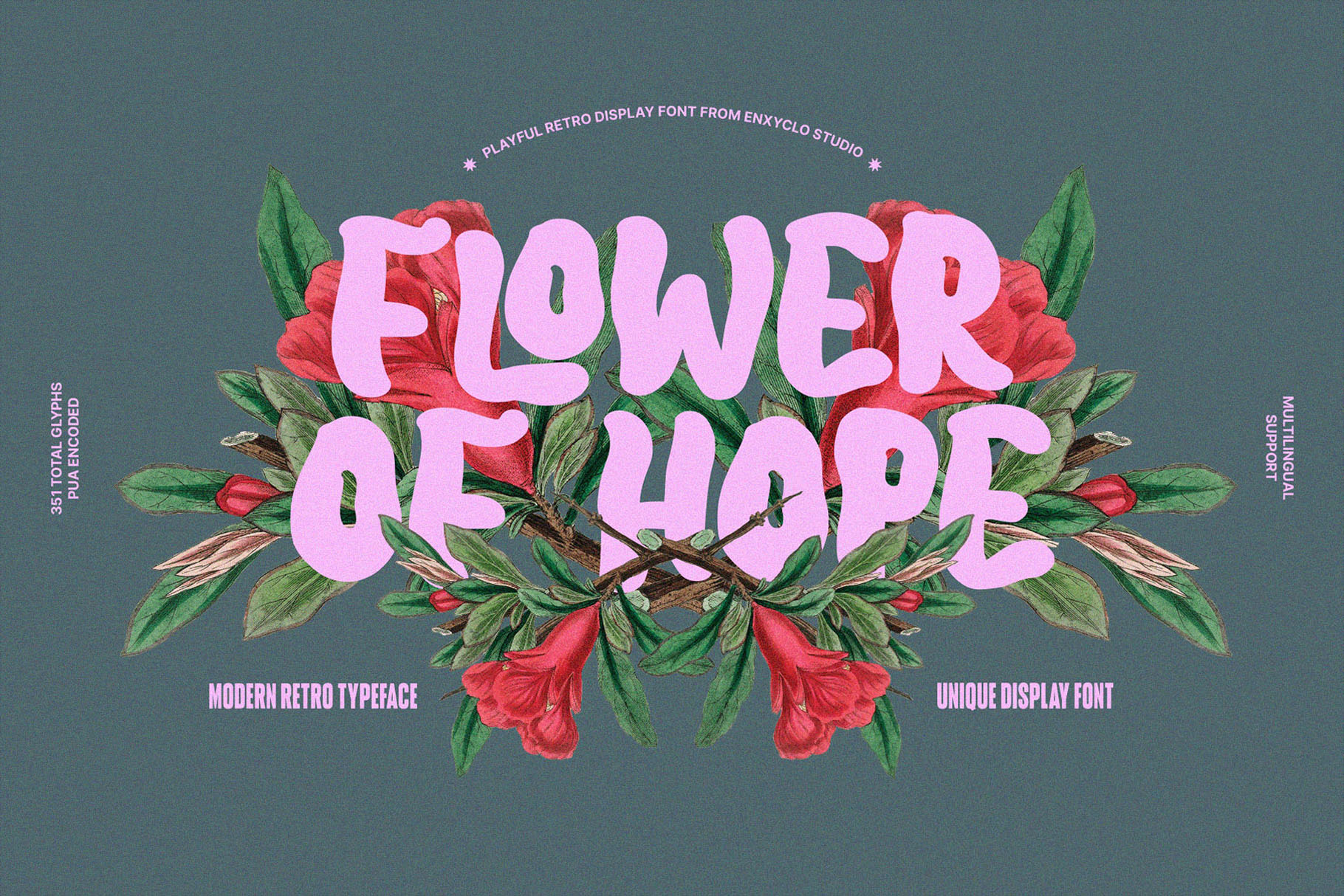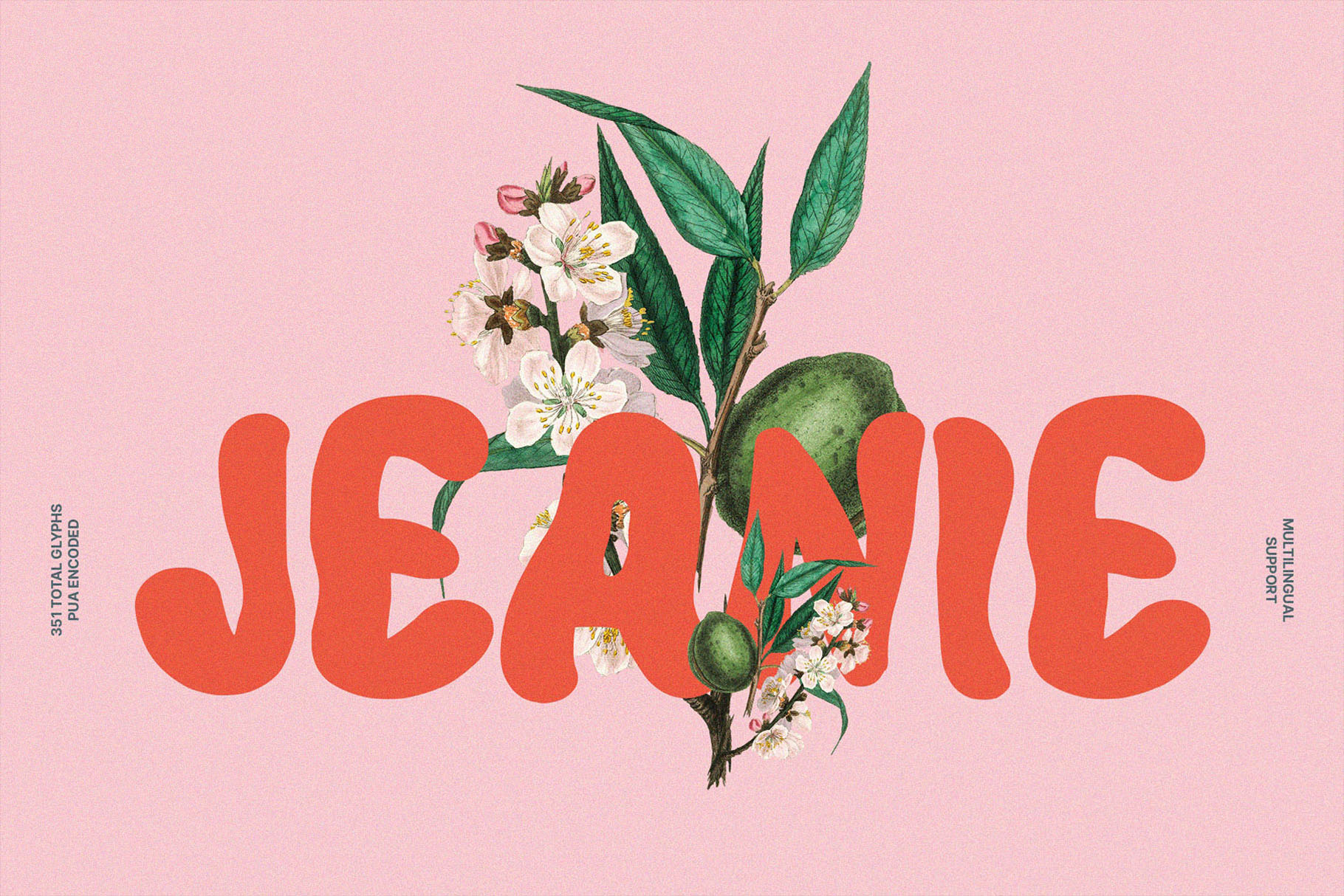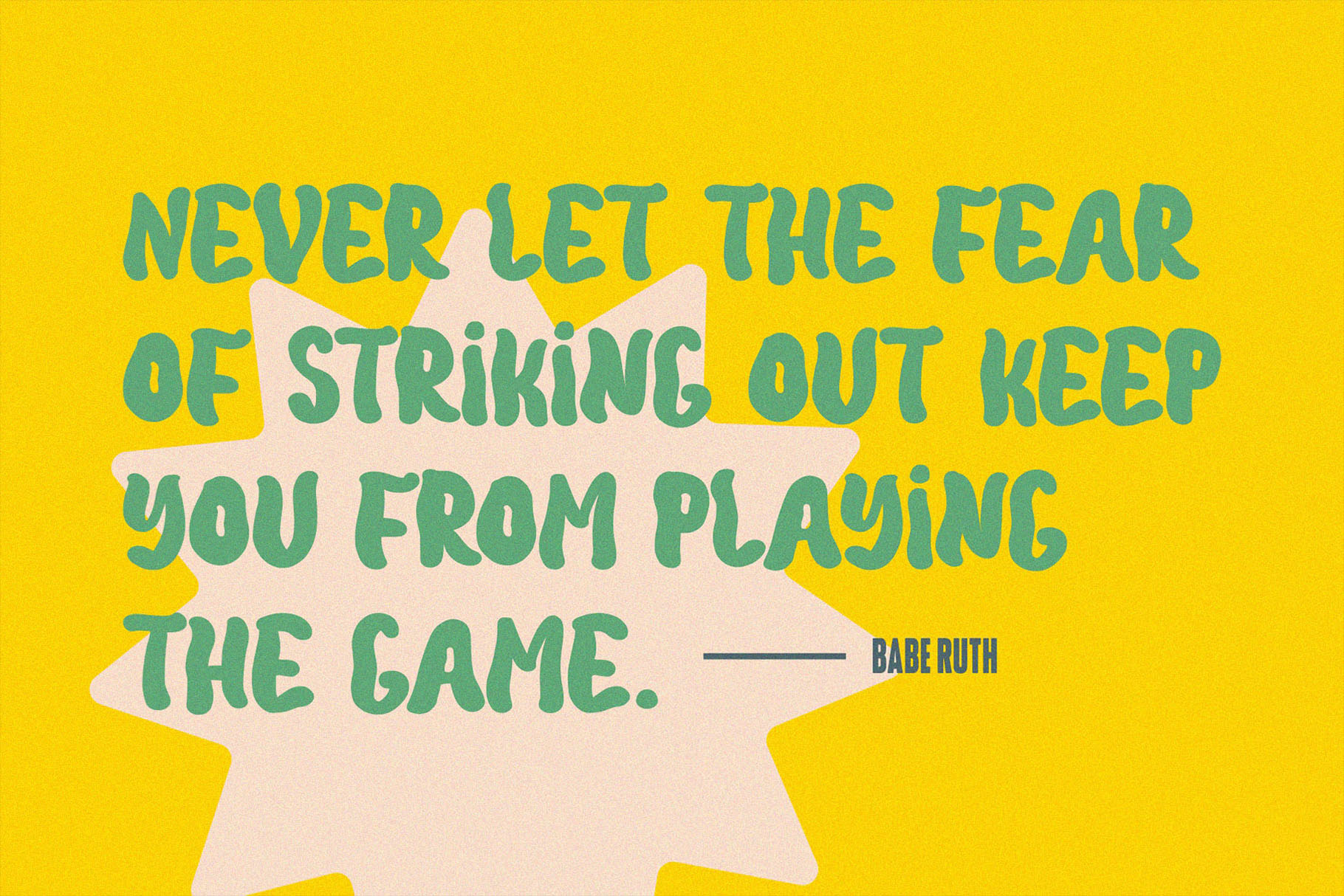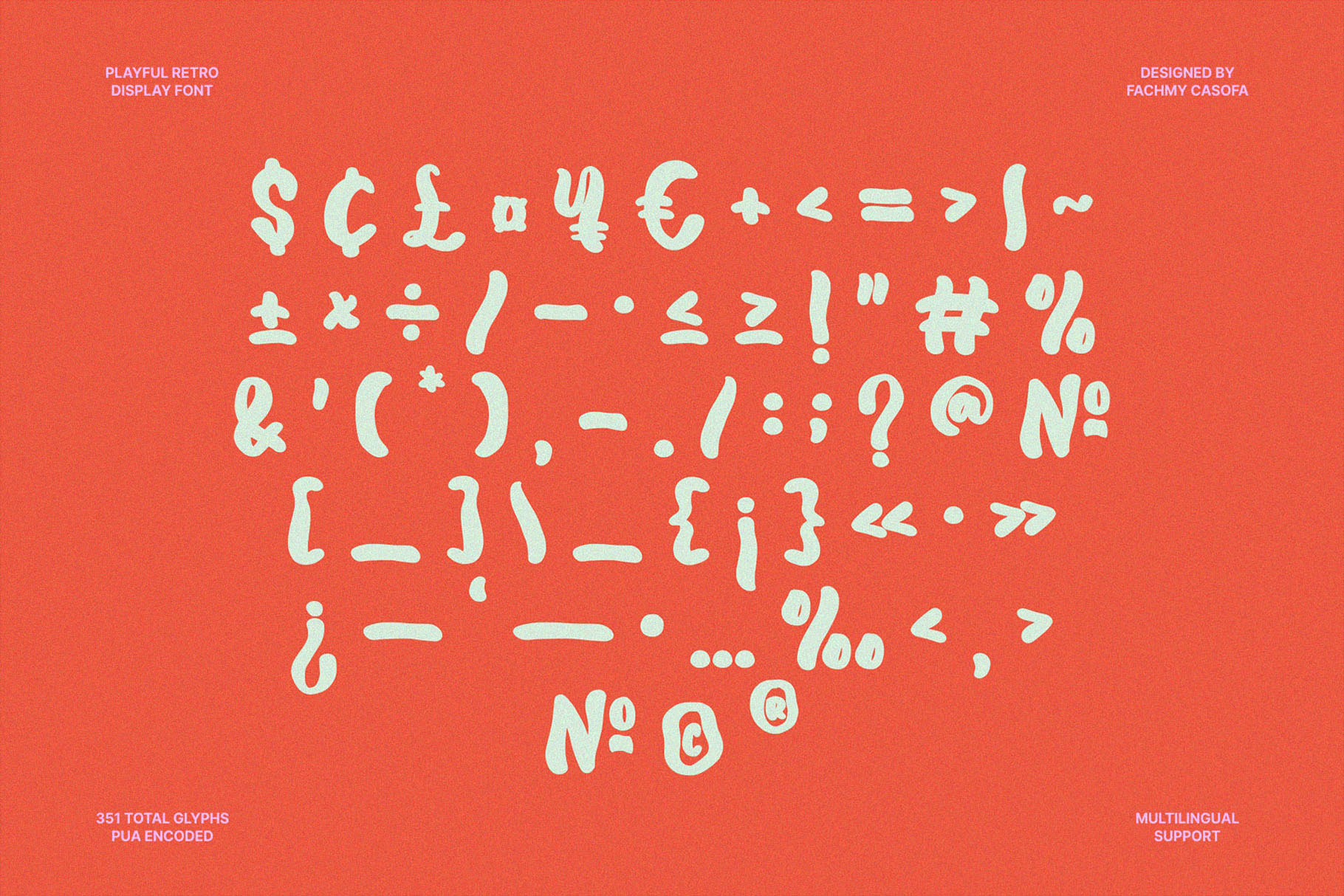
NCL Benodes Unique – Retro Bold Handwriting Font
NCL BENODES UNIQUE is a bold playful retro display font. Masterfully designed to become a true favorite, this font has the potential to bring each of your creative ideas to the highest level! It was purposely crafted to be used in large point sizes, although it doesn’t lose its magic in small point sizes. It is perfect for headline, billboard, magazines, website, titles, poster, branding, and logos. No matter the topic, this font will be an incredible asset to your fonts’ library, as it has the potential to elevate any creation. With this beautiful font, absolutely you can make your project stand out from the rest.
• Contains 351 Glyphs
• Uppercase & Lowercase
• Numeral, Punctuation & Symbols
• Ligature
• Multilingual Support